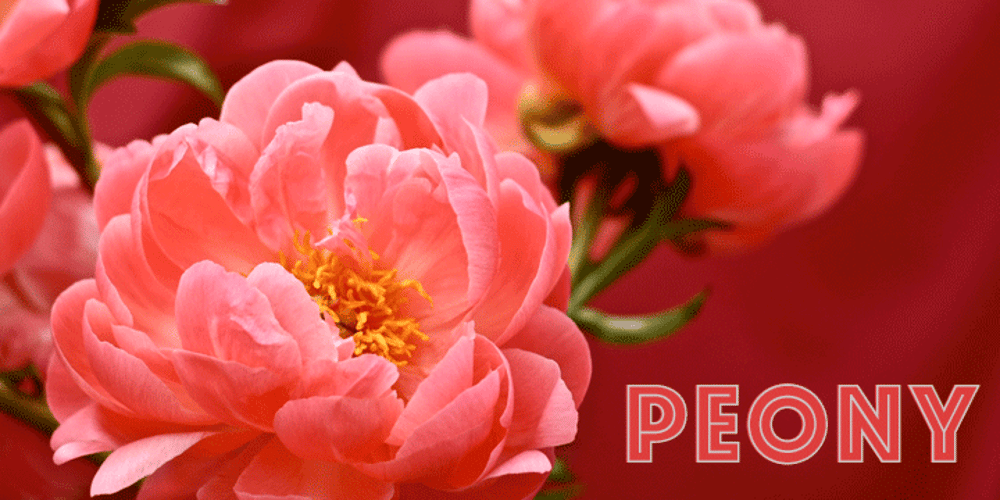
Zamenhof
Zamenhof font
Zamenhof Font Family was designed by published by CastleType. Zamenhof contains 5 styles and family package options. Zamenhof is a family of five fonts that can be used singly or in combination to create a variety of bold, yet elegant, display styles. Inspired by Russian hand-lettering that appears to have been based on Jakob Erbar’s Phosphor, Zamenhof is essentially a Latin interpretation (with Cyrillic and Greek) of a Cyrillic interpretation of a Latin type design, with many changes along the way. (For example, all the Latin-only letters are quite different between the two designs: D, F, G, J, K, N, Q, R, S, U, V, W, Y, Z.) The Inline and Inverse styles of Zamenhof are the basic fonts and can be used effectively on their own. The Plain and Outline fonts — which I recommend using only in combination with the main designs — were created specifically to be combined with Inline and Inverse, as underlay and overlay layers, respectively. (You will need an application that supports layers, such as Adobe InDesign or Photoshop.) Zamenhof supports most European languages as well as modern Greek, and of course, Russian and other languages that use the Cyrillic alphabet. Needless to say, as Zamenhof is named after the father of Esperanto, it also supports Esperanto (as do all fonts from CastleType).